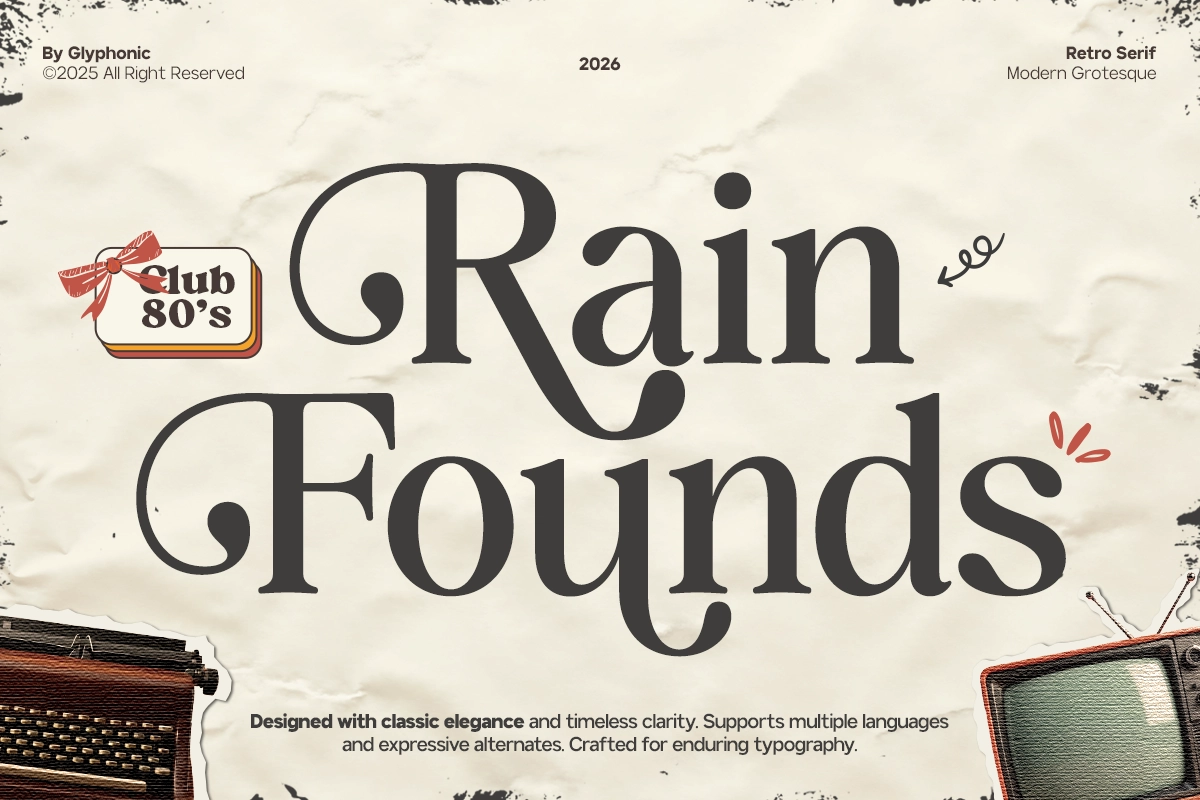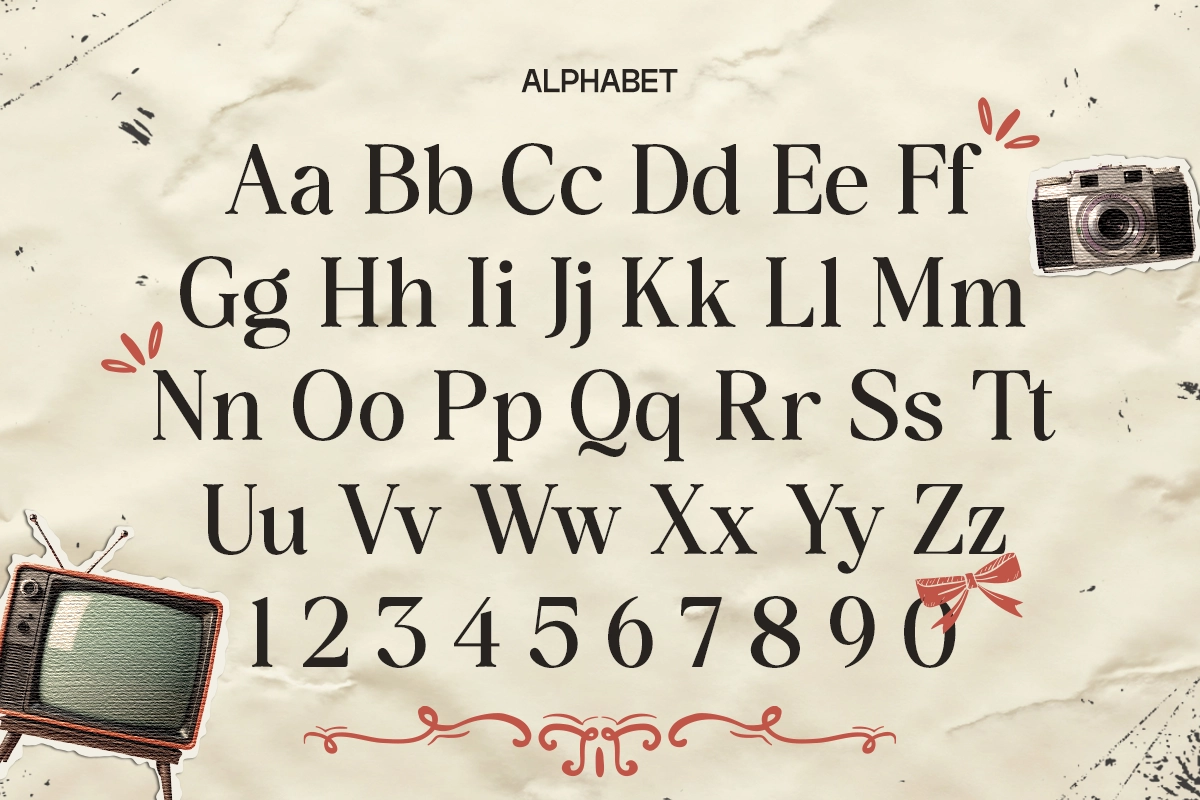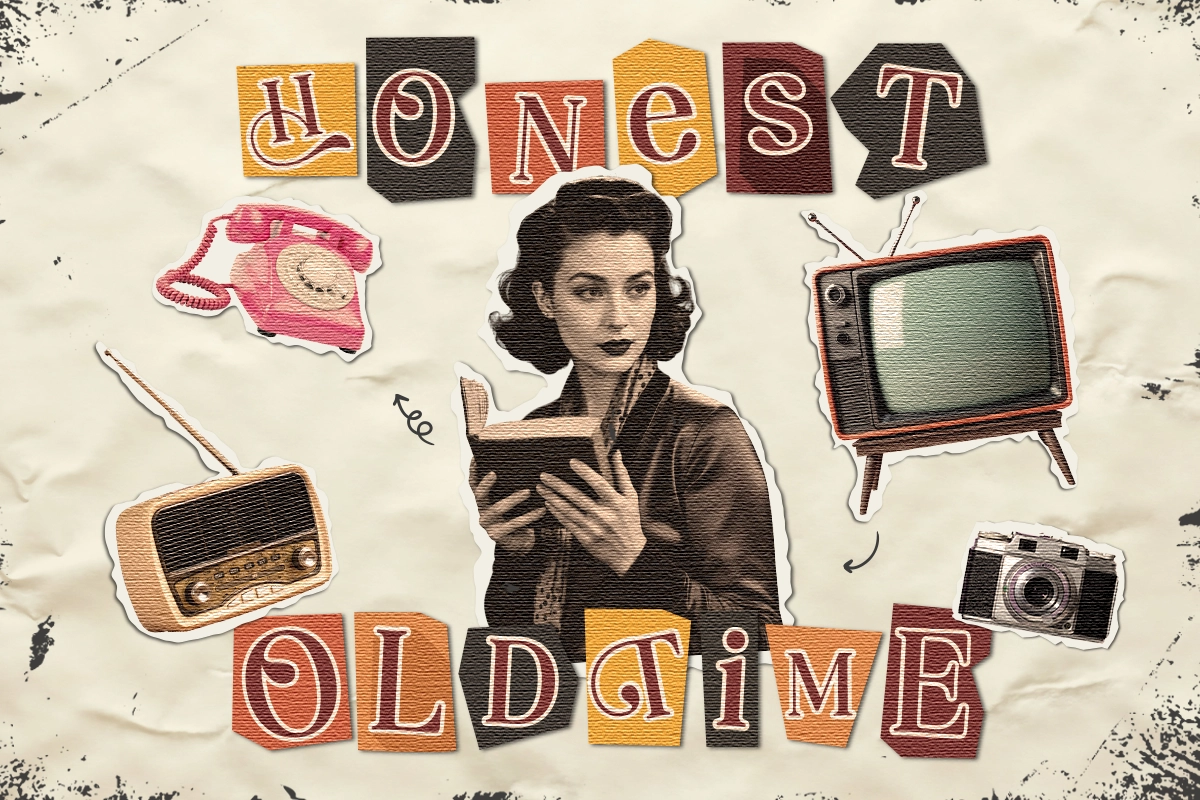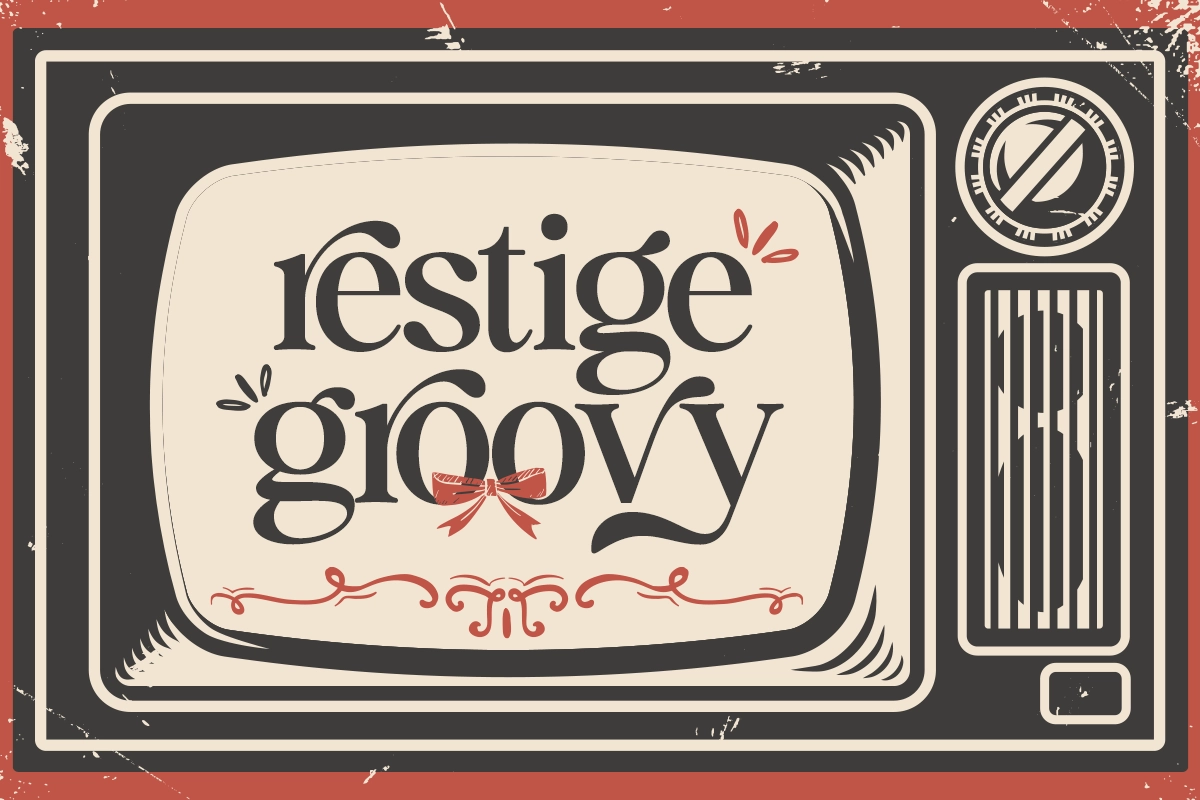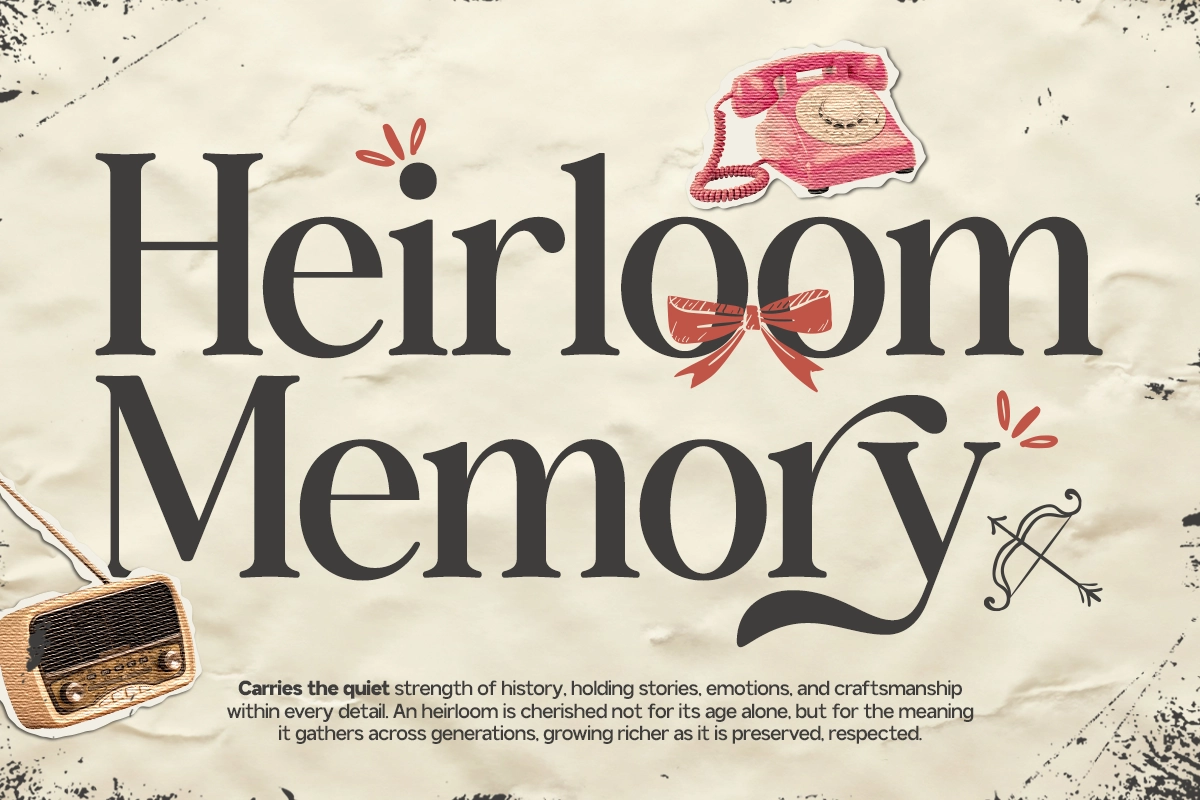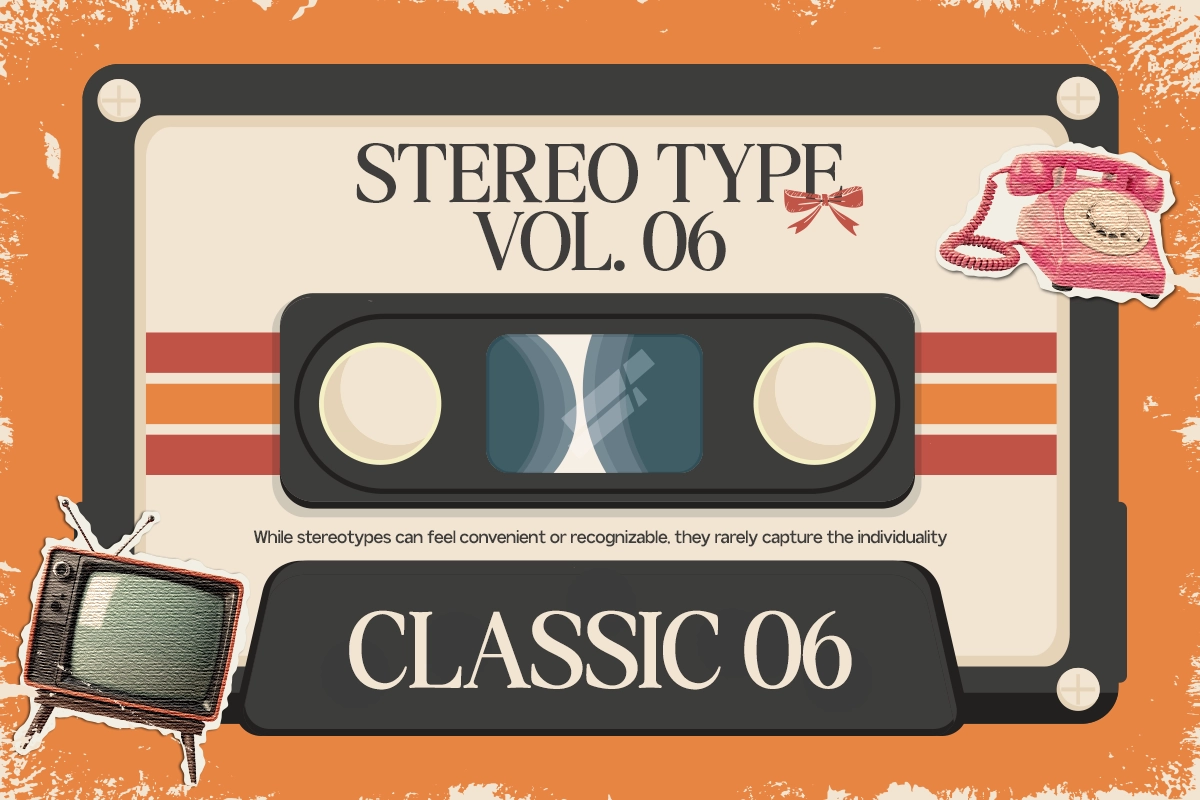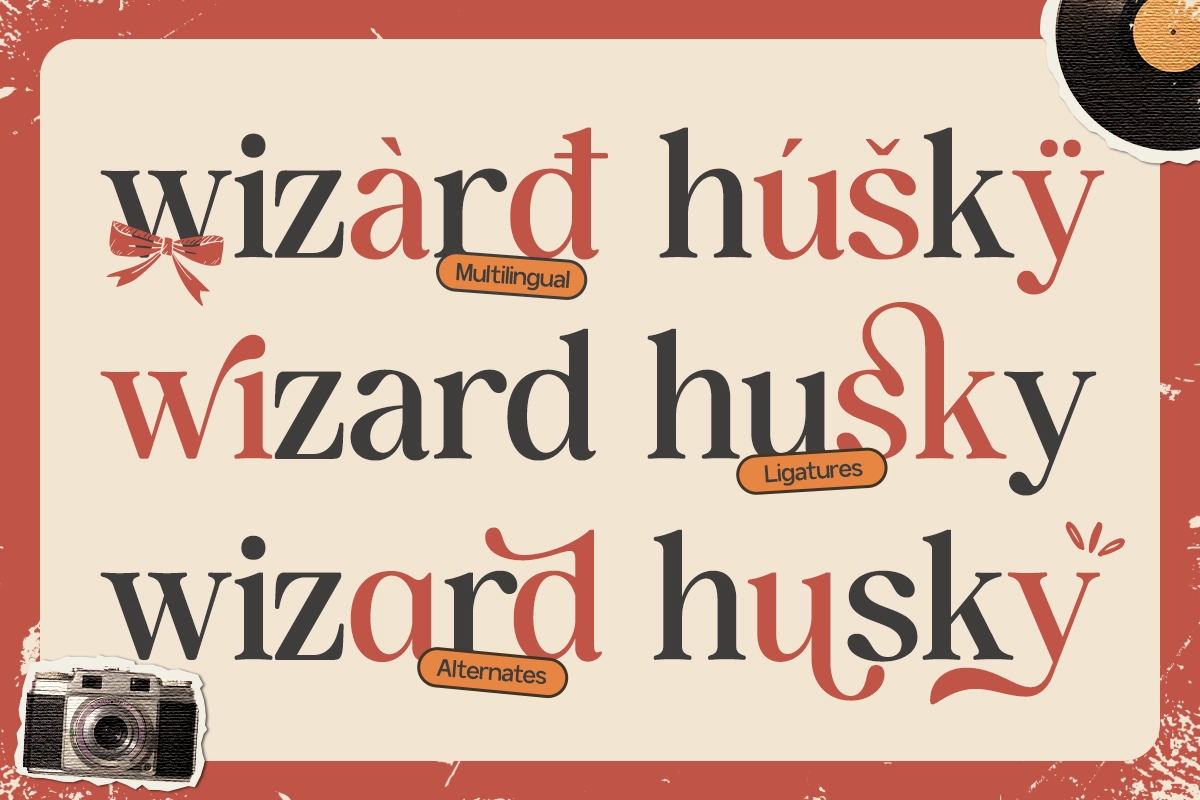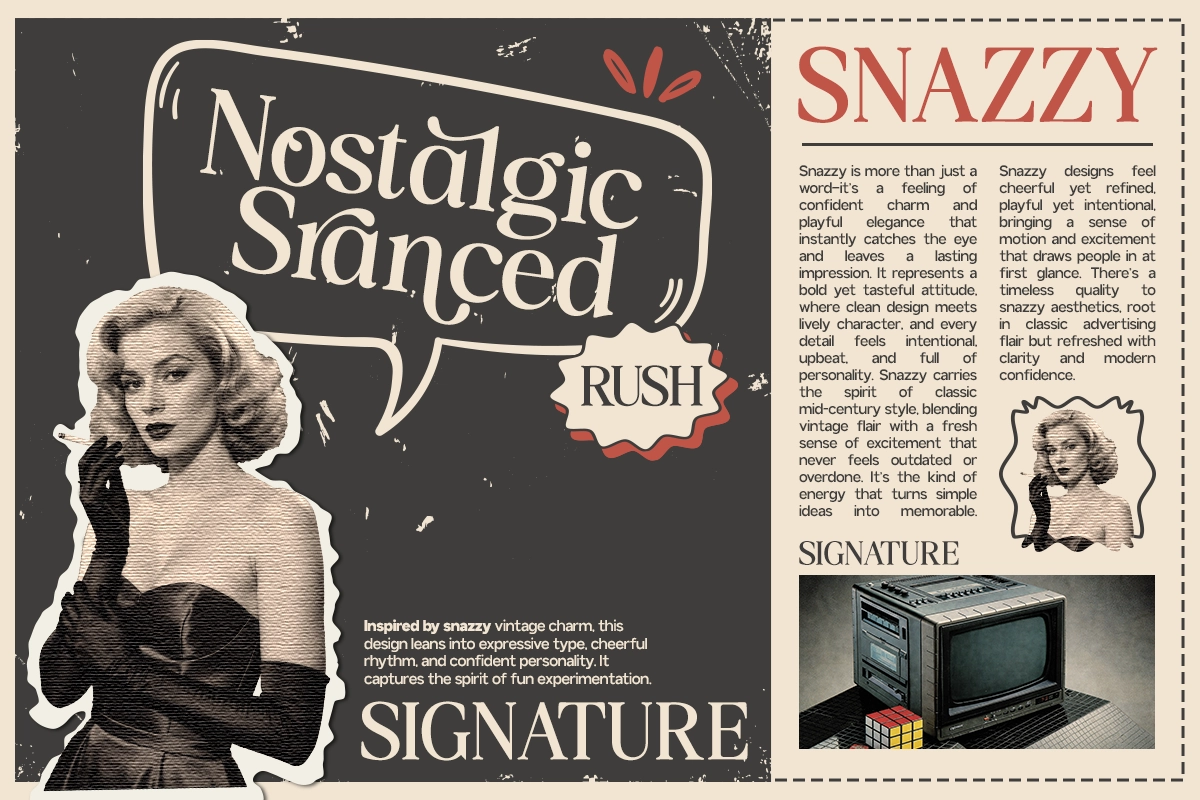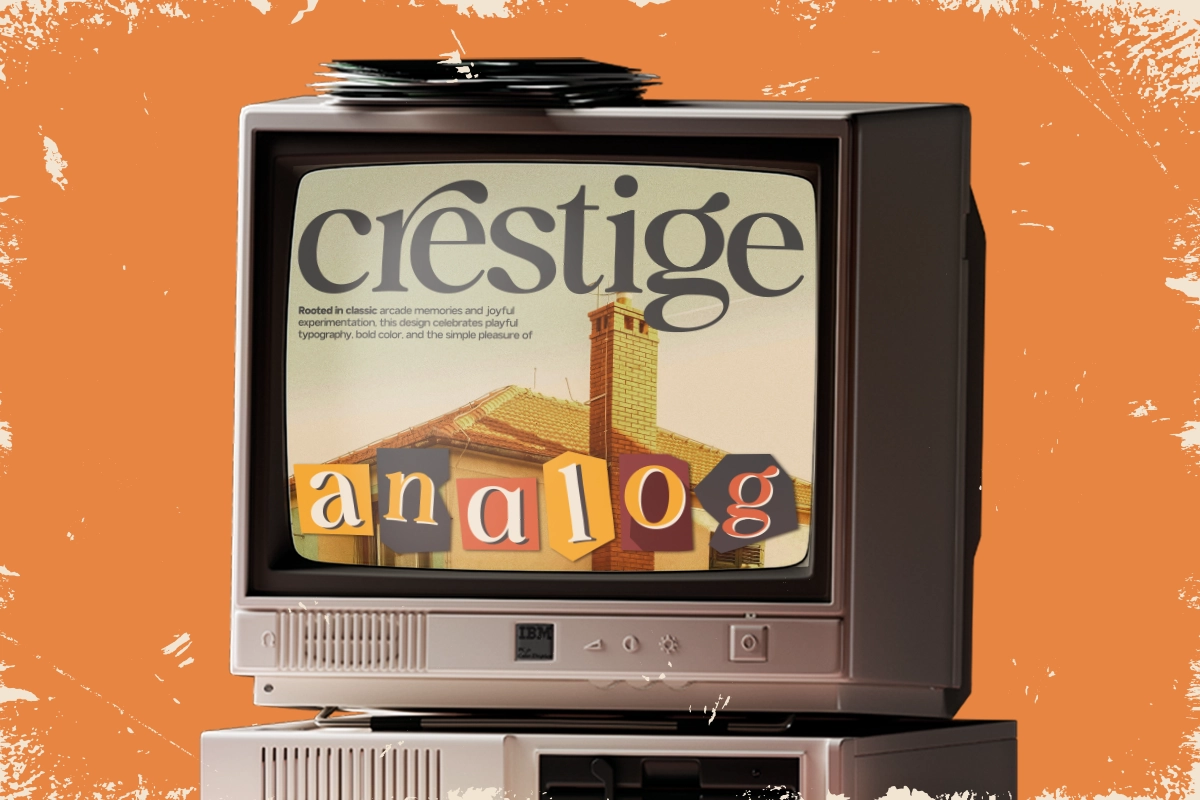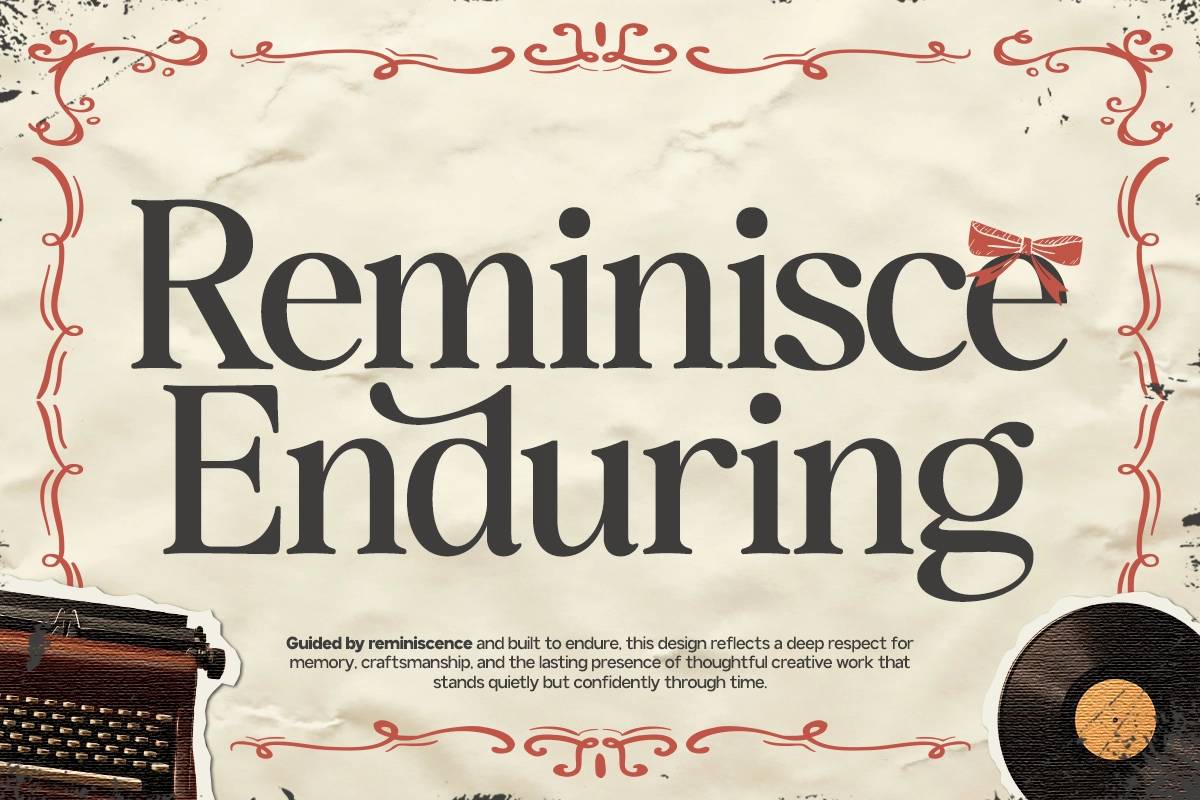
GC Rain Founds - Elegant Retro Serif
GC Rain Founds – Elegant Retro Serif is a refined typeface that blends vintage sophistication with modern clarity. Inspired by classic retro typography, it features graceful curves, sharp yet delicate serifs, and balanced contrast that create a timeless and expressive visual identity.
Designed for versatility, GC Rain Founds works beautifully in bold headlines, editorial layouts, and elegant branding systems. Its nostalgic character adds warmth and personality, while its carefully structured letterforms maintain readability across both print and digital projects. Perfect for fashion branding, wedding stationery, boutique packaging, magazines, and luxury visual identities, this serif font delivers a distinctive retro charm with contemporary elegance.
• Numbers & Punctuation
• Elegant Retro Serif Construction
• Carefully Balanced Contrast